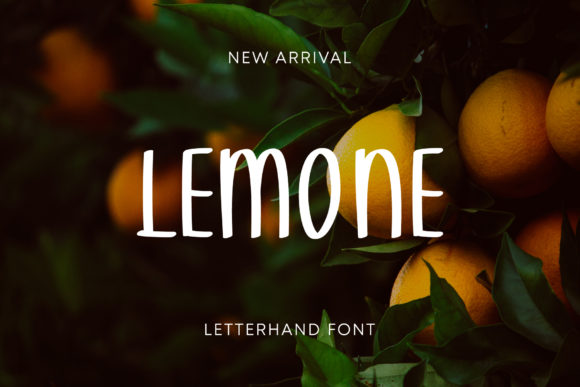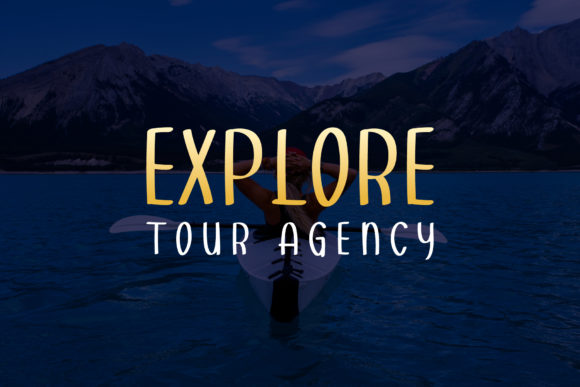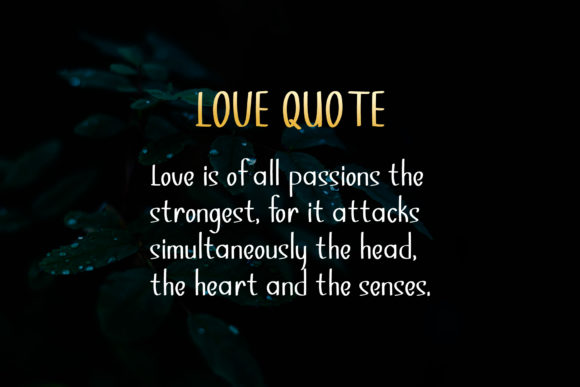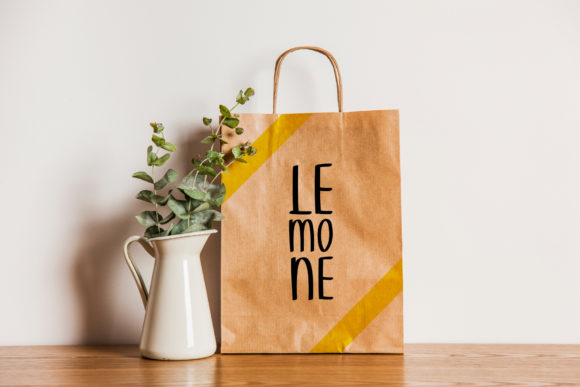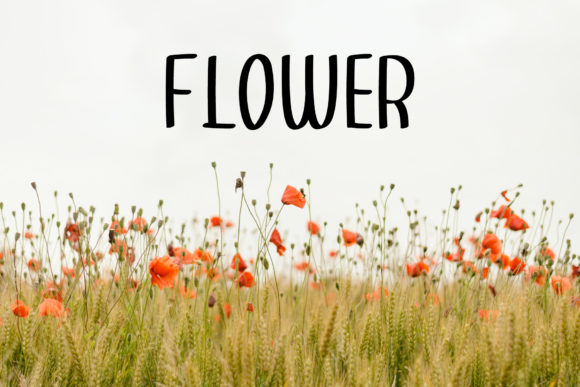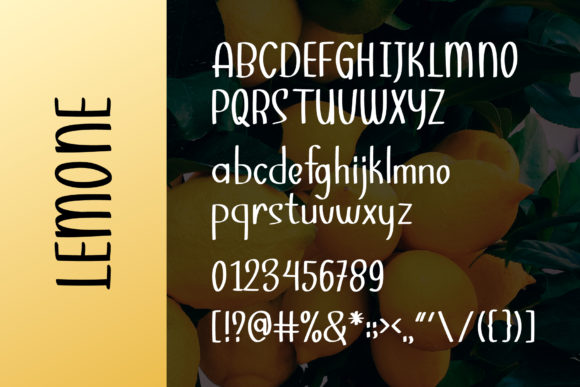
Lemone Summer Font
About Lemone Summer Font
Lemone Summer is a sweet and friendly handwritten font. Its natural and unique style makes it incredibly fitting to a large pool of designs.